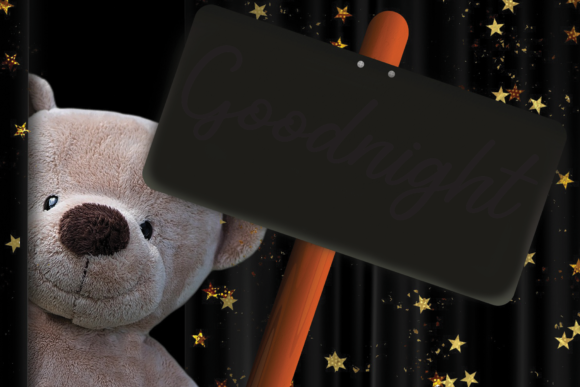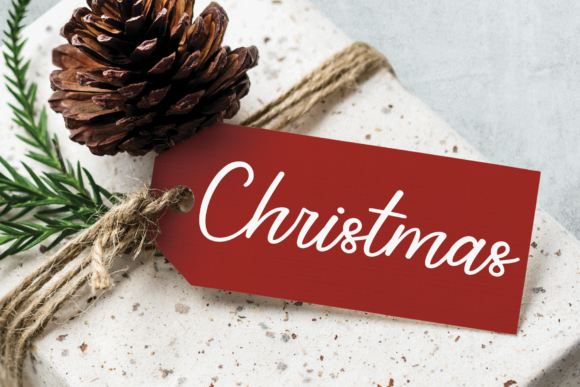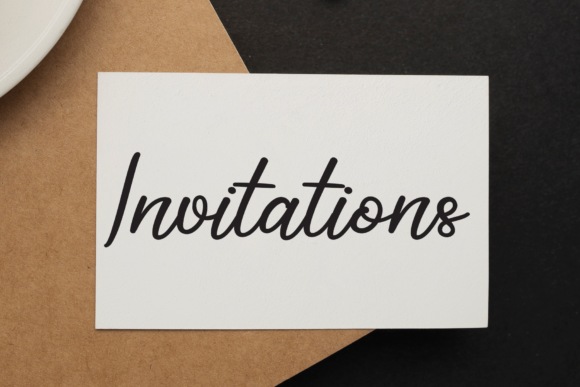
Introduction to Signature Written Font
Signature Written is a simple and well balanced script font.
Fall in love with its ravishing style and use it to create gorgeous wedding invitations, beautiful stationary art, engaging social media posts and more .
Signature Written Font offers exceptional quality and versatility, making it a valuable addition to your design toolkit. Whether you’re creating for personal projects or commercial use, Signature Written Font delivers professional results.